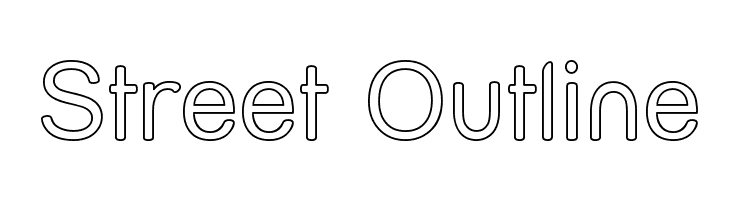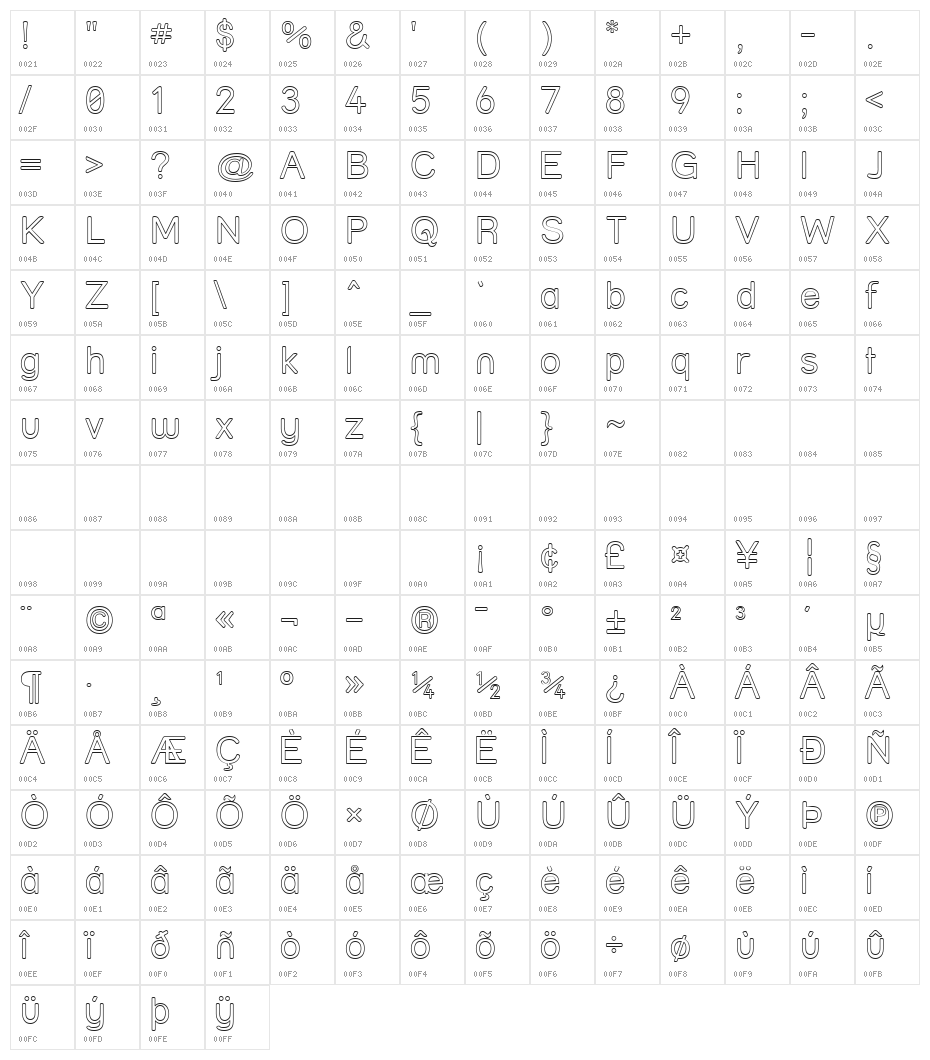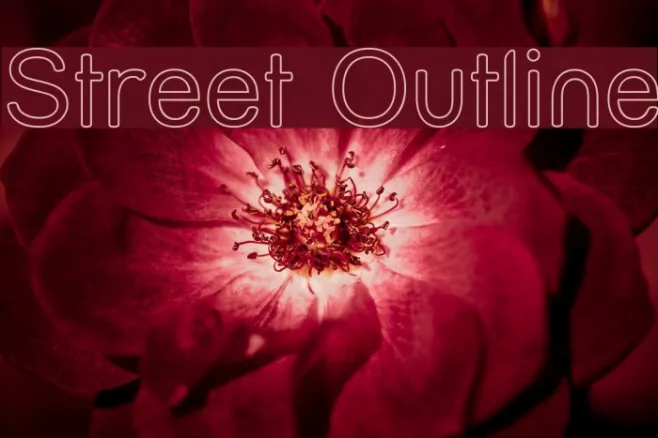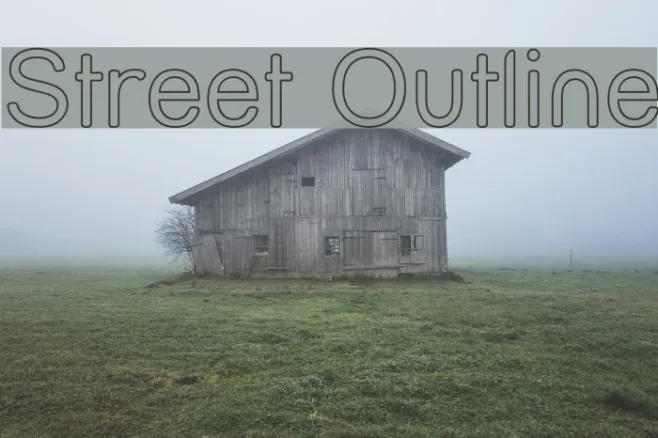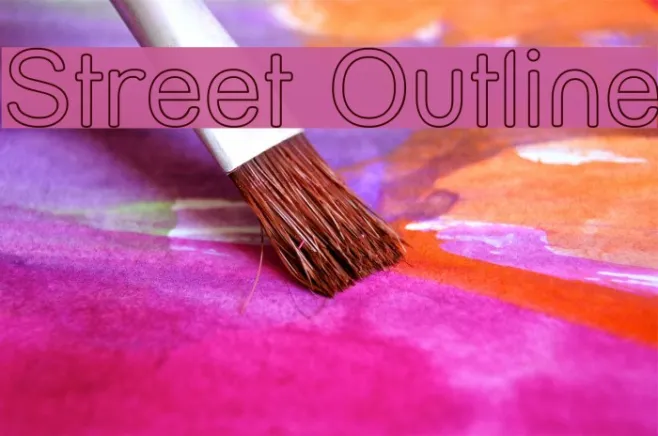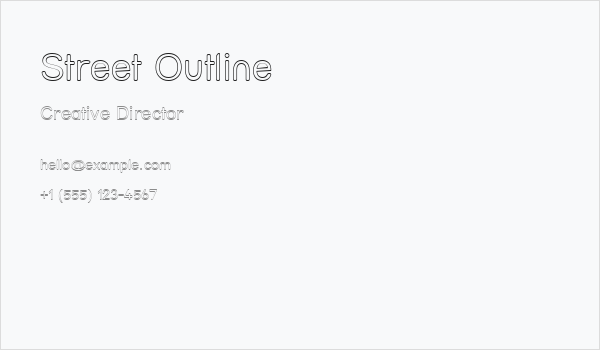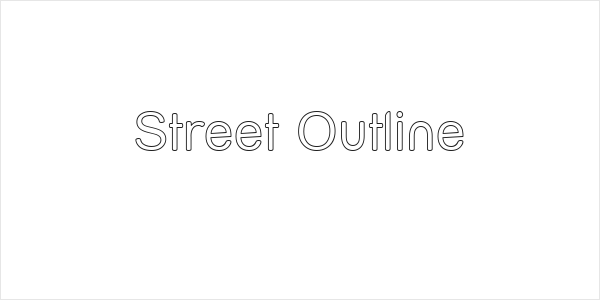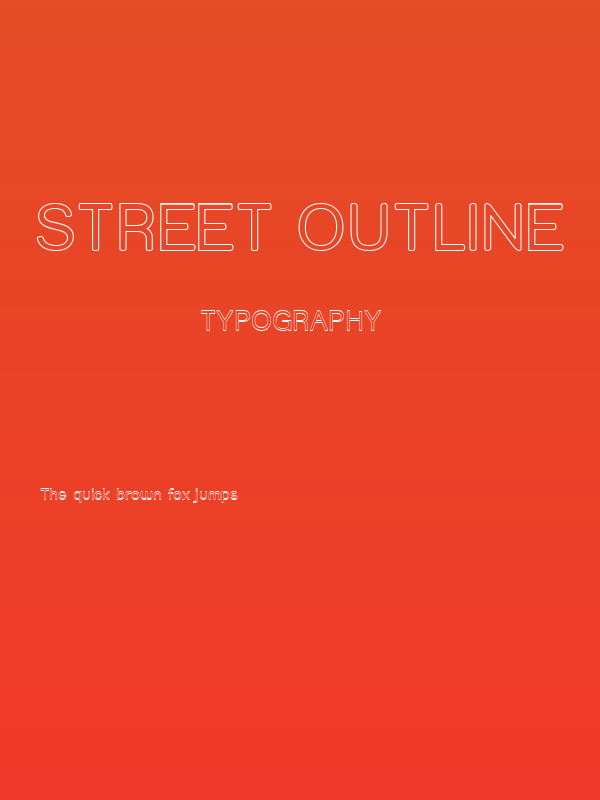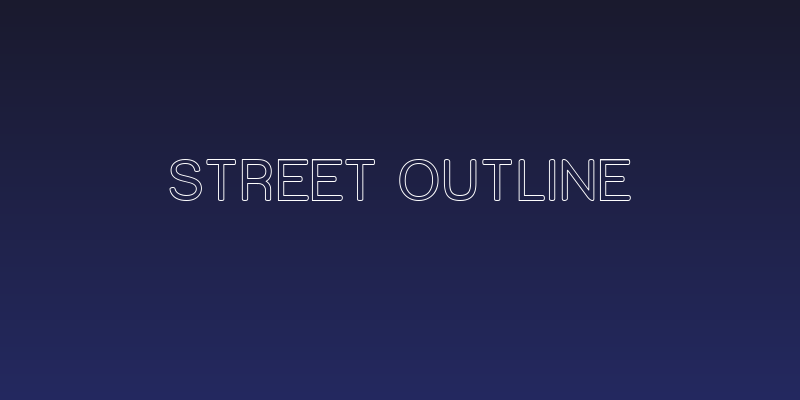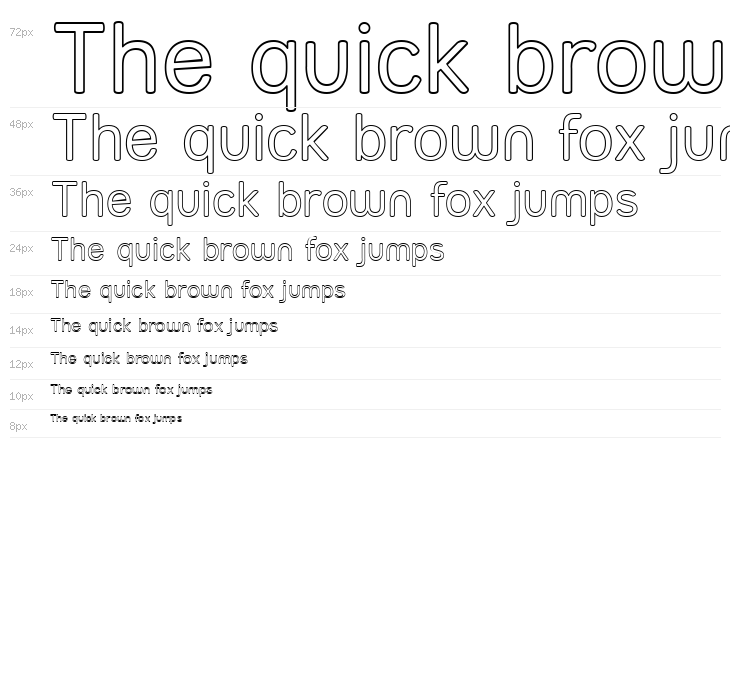
Street Outline Font
Street Outline Description
This font features a clean, modern outline style with uniform stroke widths, creating a minimalist and contemporary look. The characters are well-proportioned and maintain a consistent line weight throughout, giving it a sleek and polished appearance. The uppercase and lowercase letters are designed with a geometric precision, while the numerals and special characters complement the overall aesthetic. This font's outline design makes it versatile for various creative applications, offering a unique twist on traditional sans-serif fonts.
| Proposed Projects | Ideal for branding, signage, posters, and digital media where a modern and clean aesthetic is desired. |